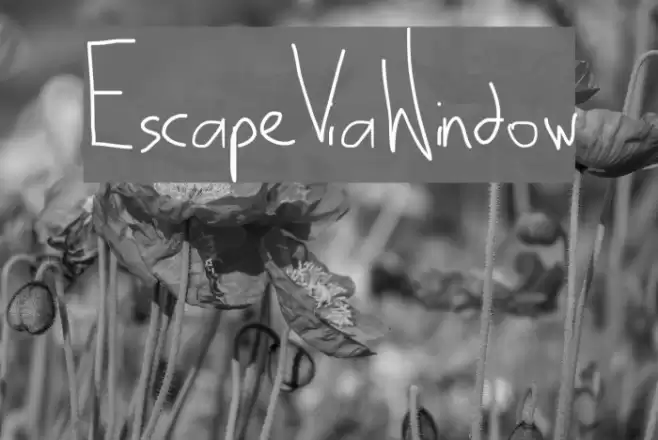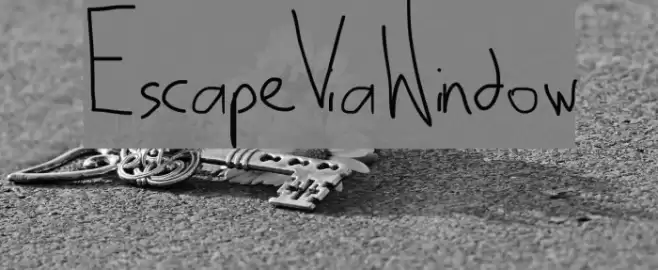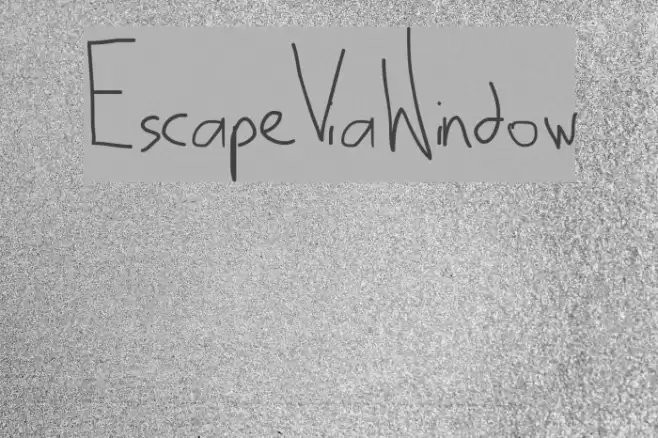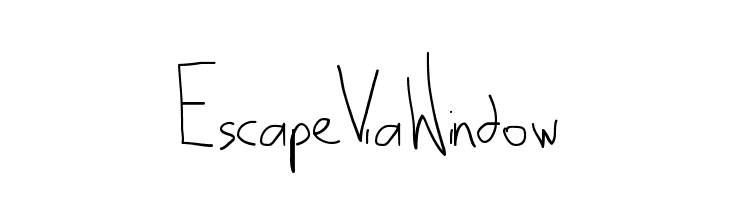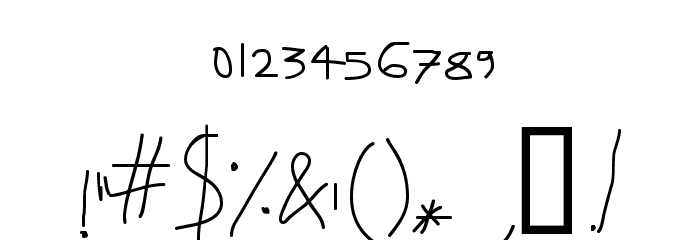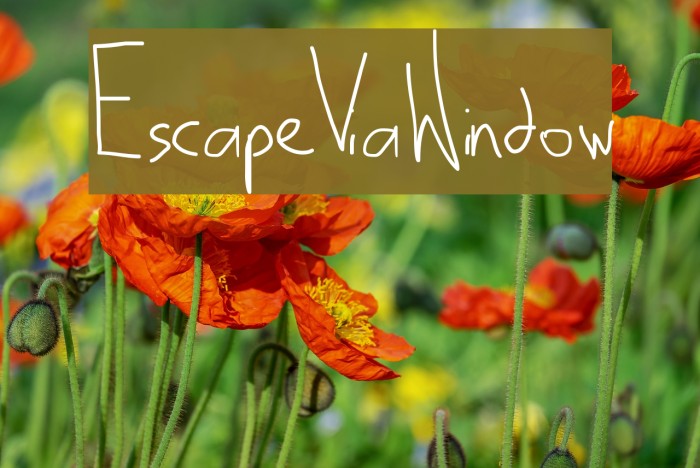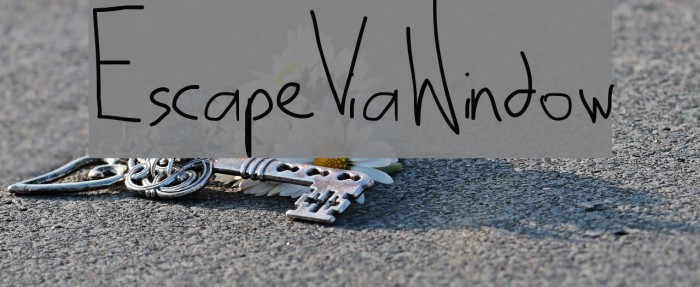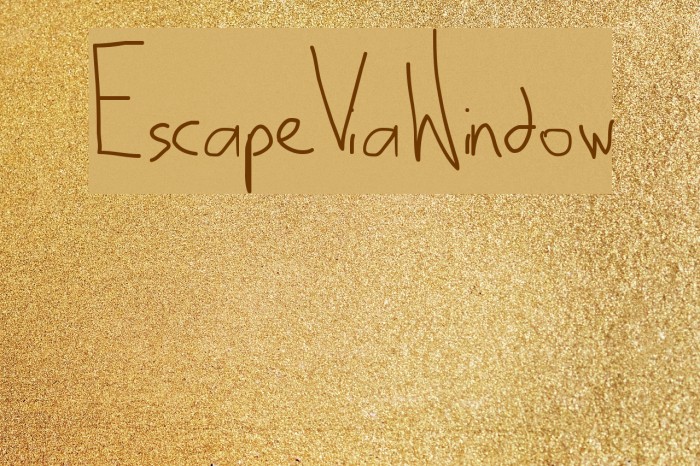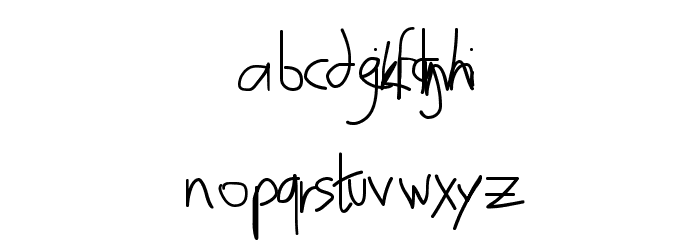
EscapeViaWindow Font
EscapeViaWindow Description
This font features a playful and whimsical handwritten style, characterized by its irregular and uneven strokes that give it a casual, informal appearance. The letters are tall and narrow, with a slight tilt that adds to the dynamic and lively feel. The uppercase and lowercase letters maintain a consistent style, with the uppercase being slightly more exaggerated in height. Numbers and special characters follow the same playful aesthetic, making the font versatile for creative projects. The overall look is reminiscent of doodles or sketches, perfect for adding a personal touch to designs.
A playful, handwritten font with irregular strokes and a whimsical style from Handwritten fonts.
- Proposed Projects: Ideal for children's books, greeting cards, playful branding, and creative posters.
- Use Case: Headlines, Logos, Creative projects